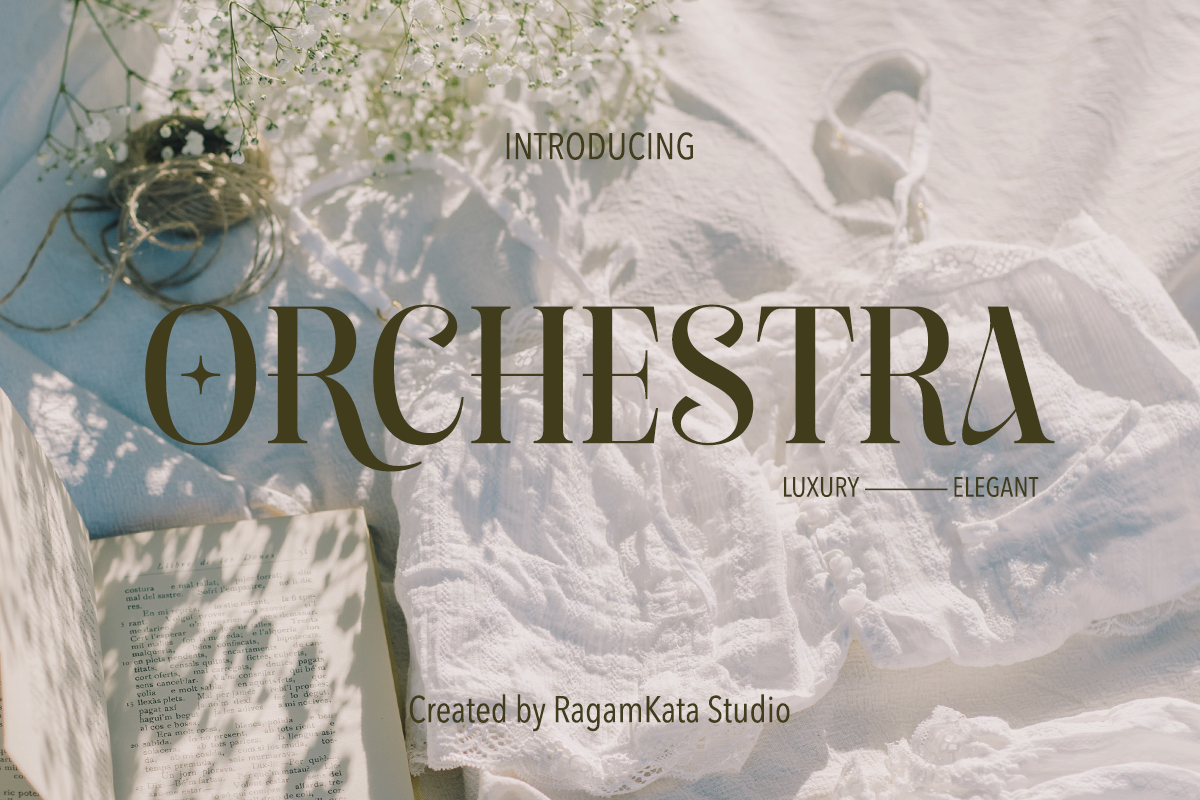
Please note, to use this font for commercial purposes, you must purchase the full version. Orchestra is a sophisticated and modern serif font designed to bring a touch of elegance and class to your designs. With its refined letterforms and contemporary style, this font is perfect for creating logos, branding, editorial designs, invitations, and high-end projects. Whether you're designing for a luxury brand, a chic event, or a timeless product, Orchestra adds a polished and professional touch to your work. Test it out and enjoy free download access for personal use. Experience the refined elegance of Orchestra - Modern Elegant Serif Font Free Download before purchasing the commercial license. Add a modern, classy touch to your designs with Orchestra.